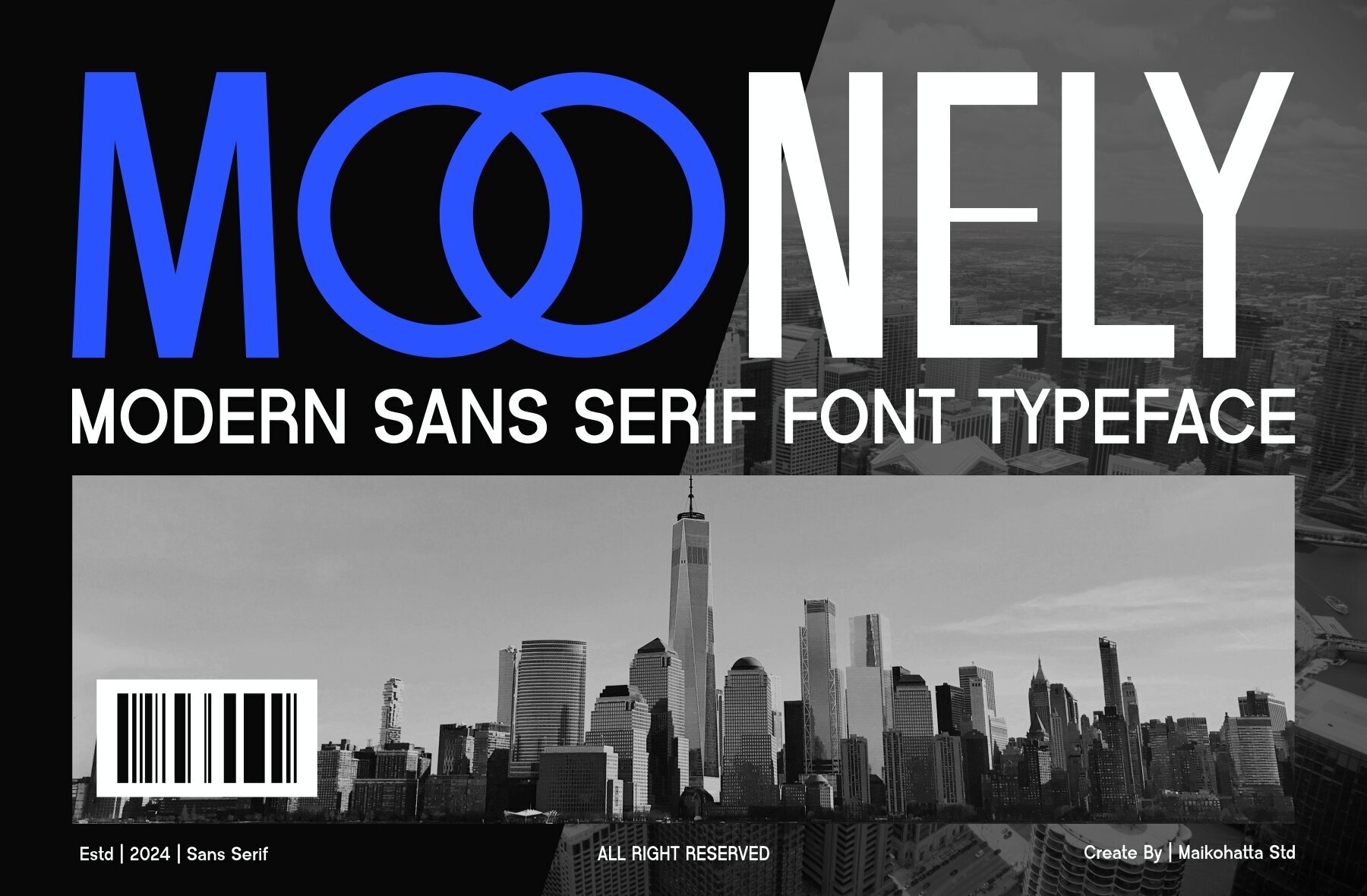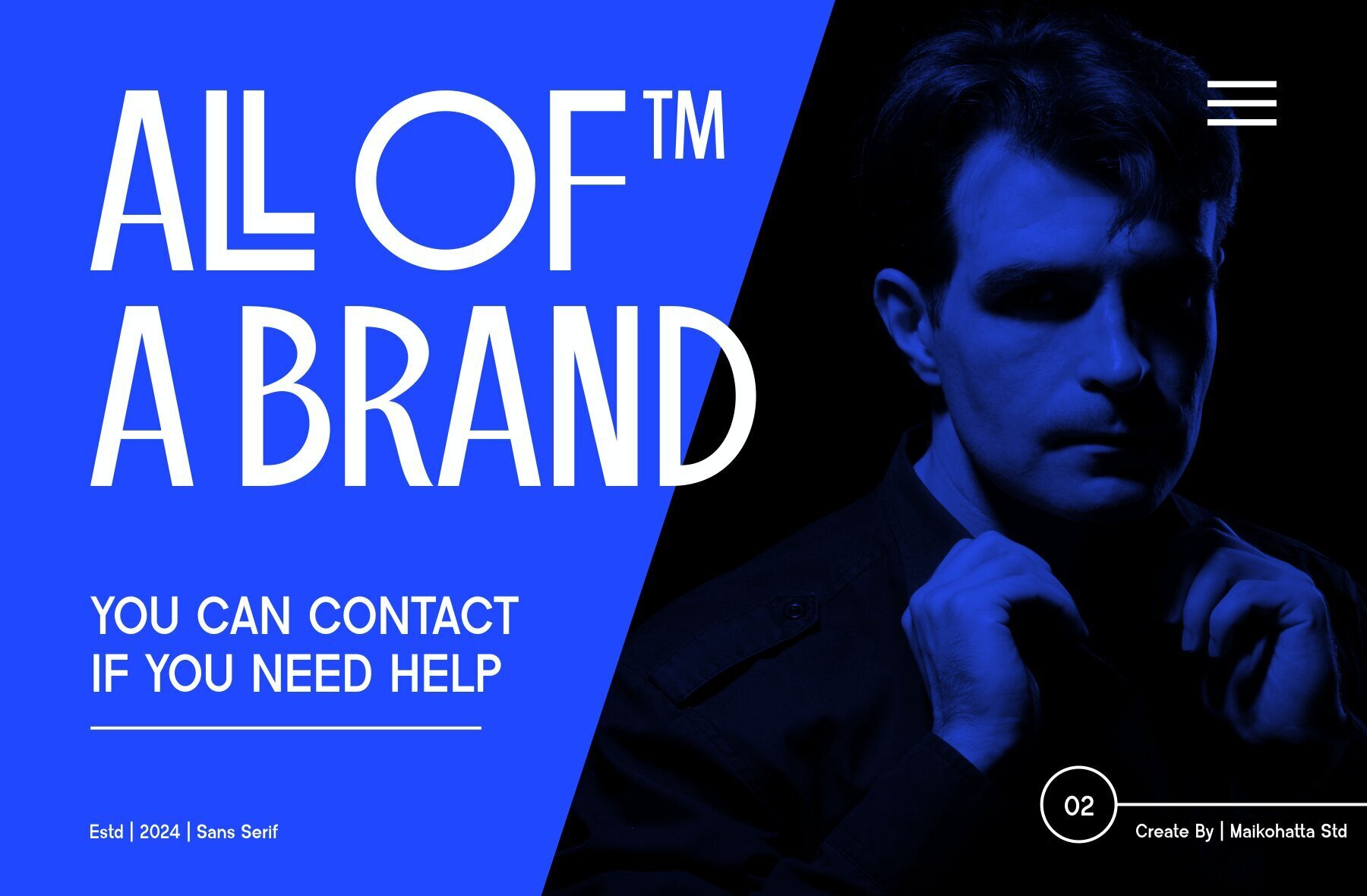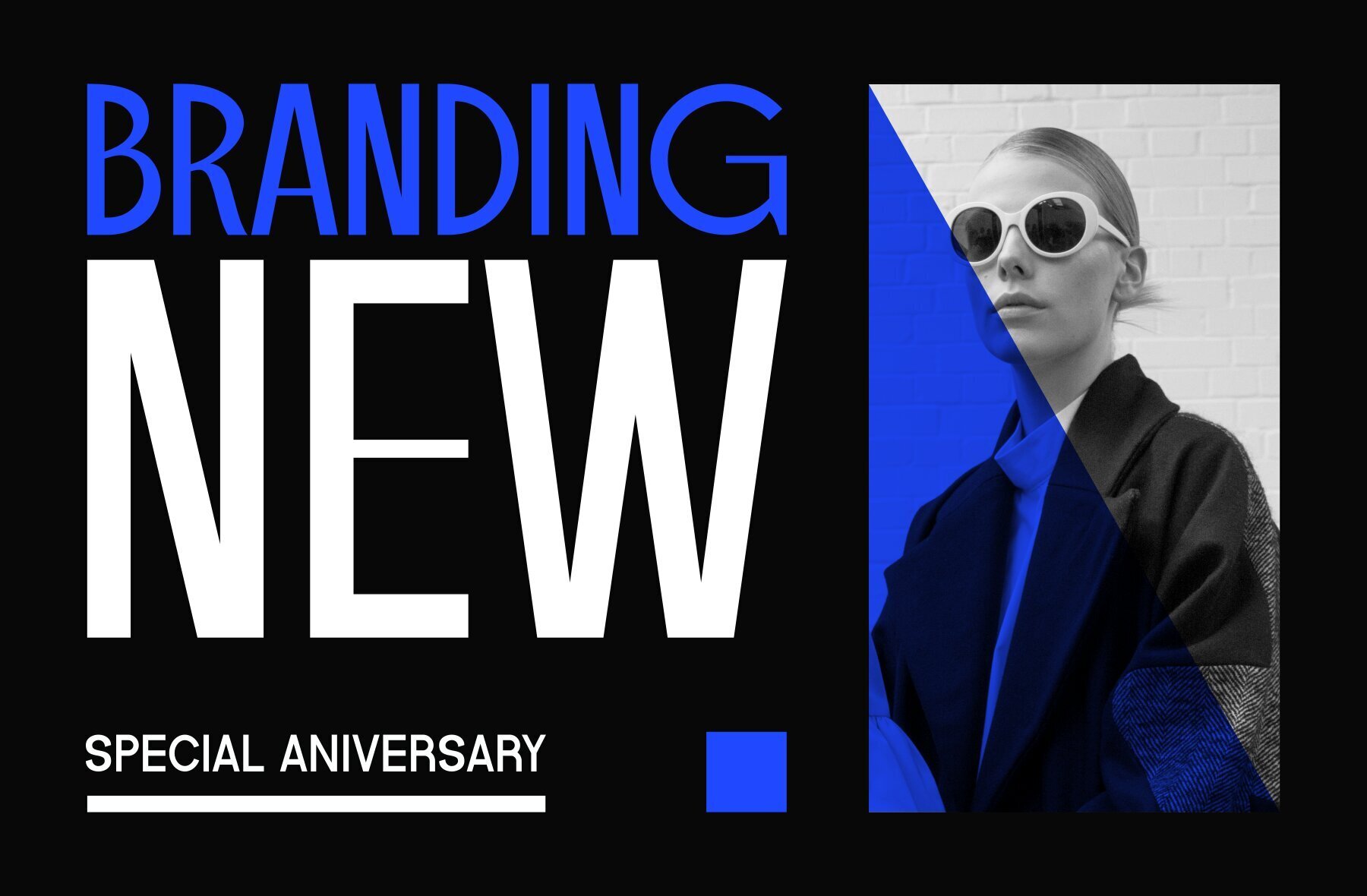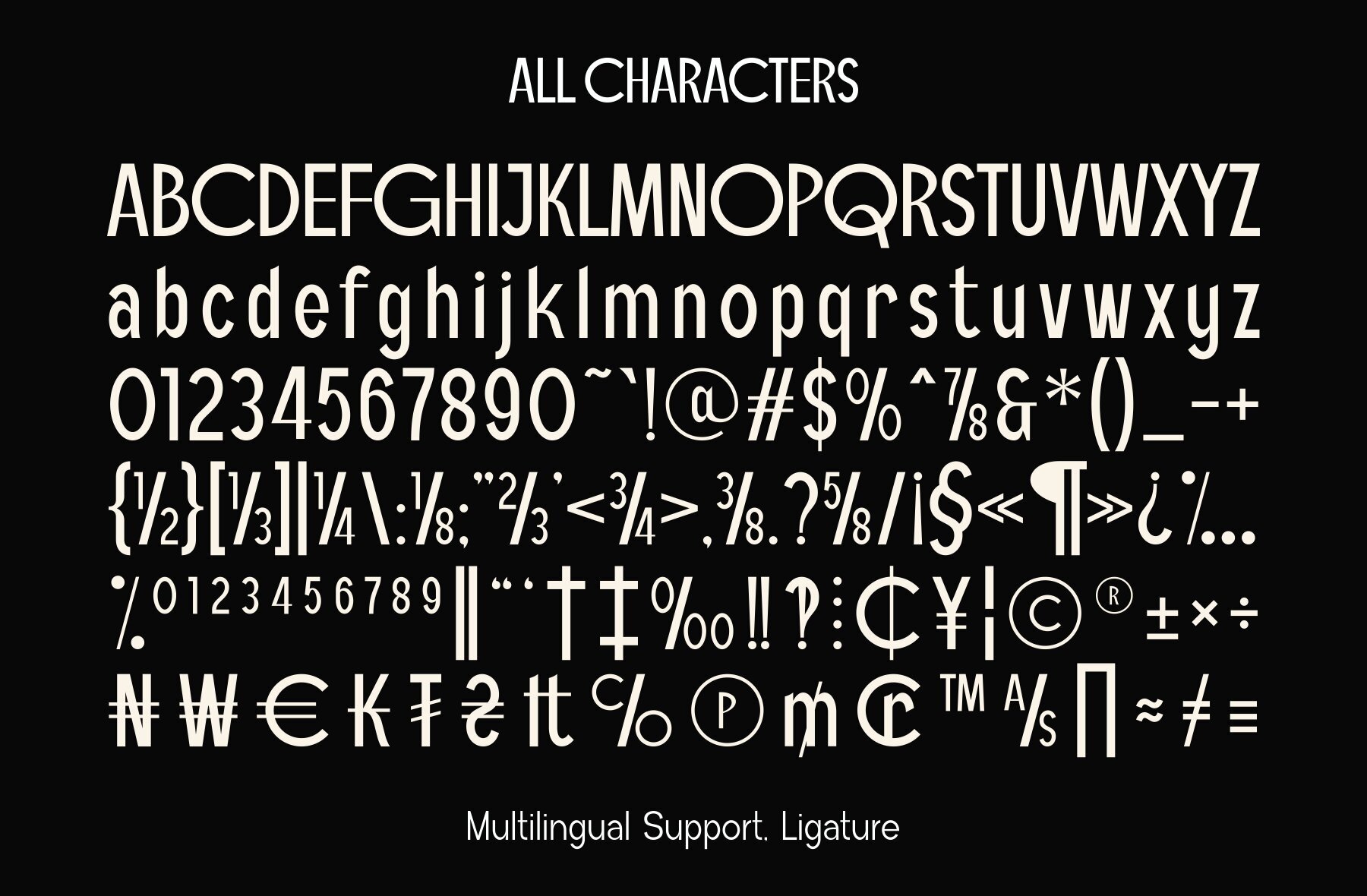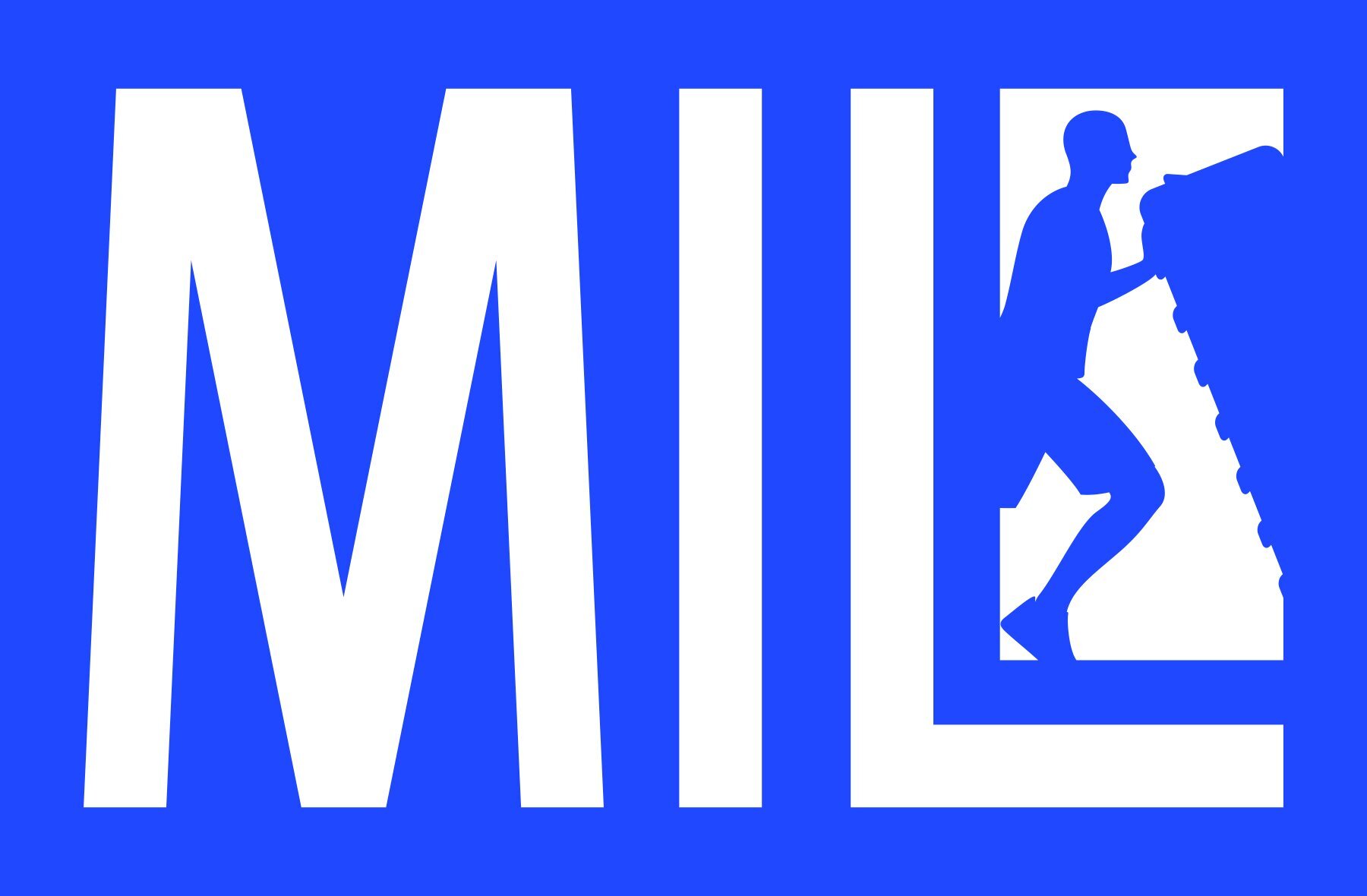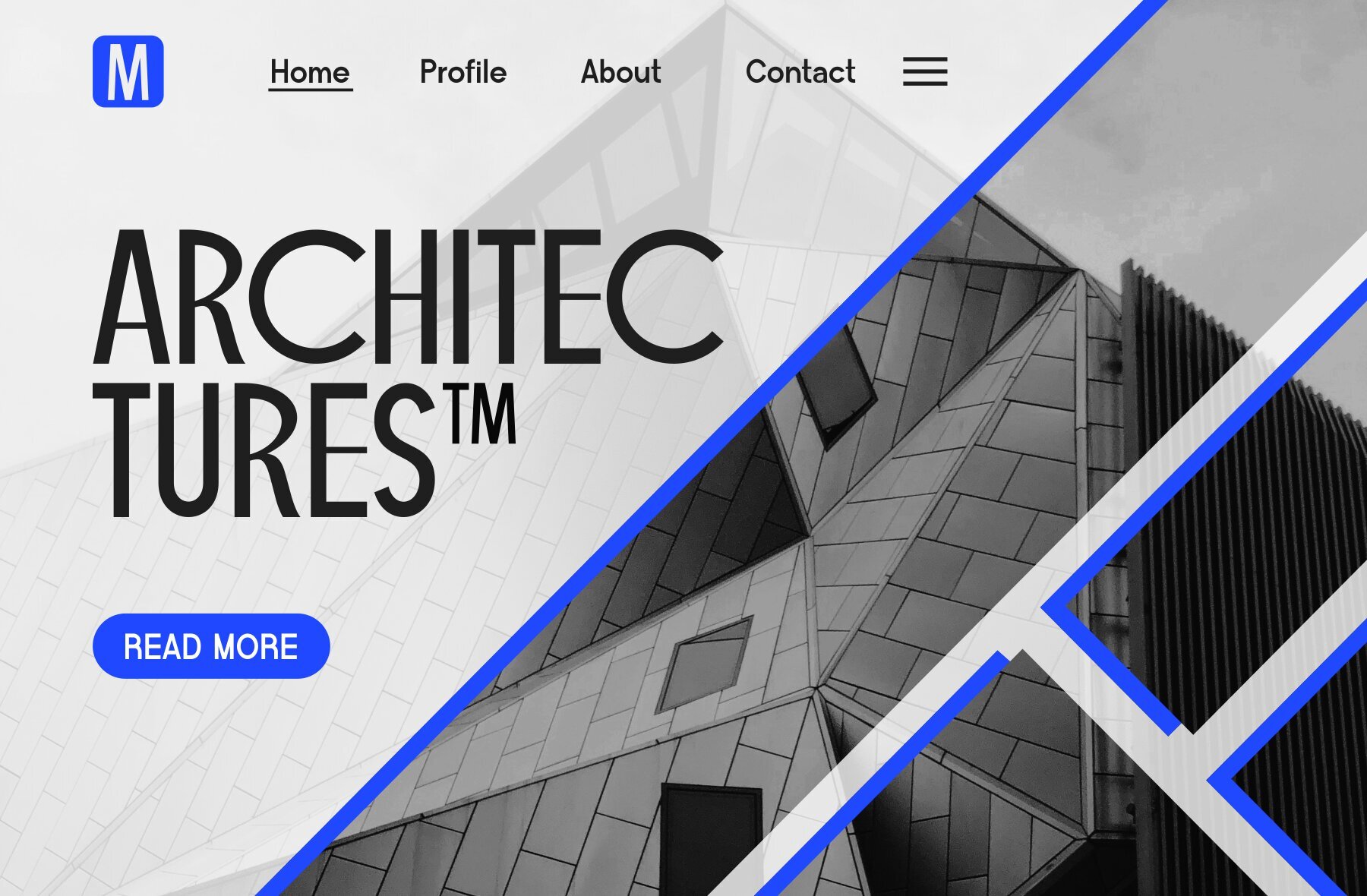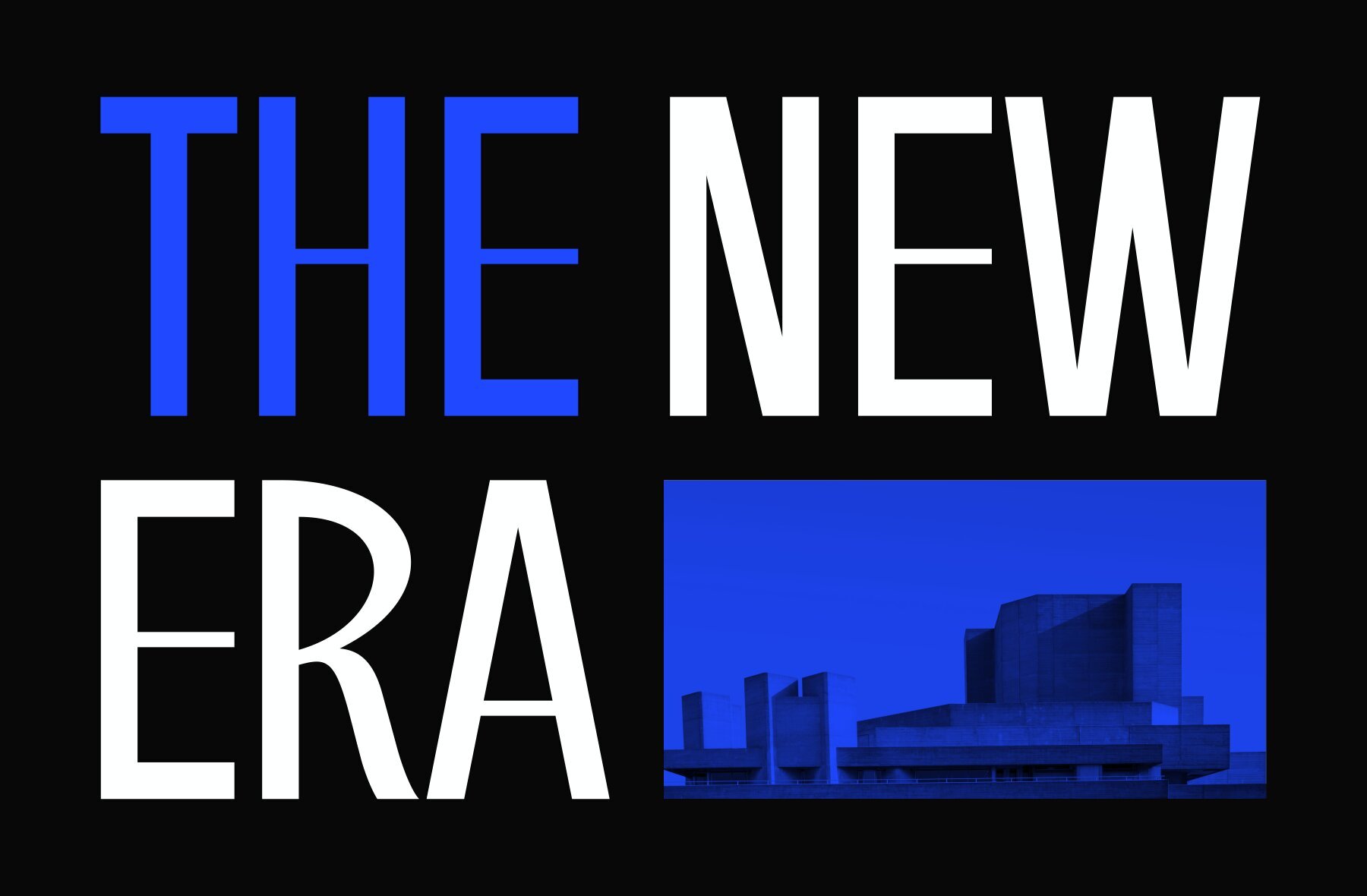
Moonely Font
MOONELY
Typography is an essential element in design, and Moonely is a modern sans serif typeface designed to meet diverse needs. Its clean and professional look makes it a versatile choice for various contexts.Moonely: Modern Sans Serif Typeface